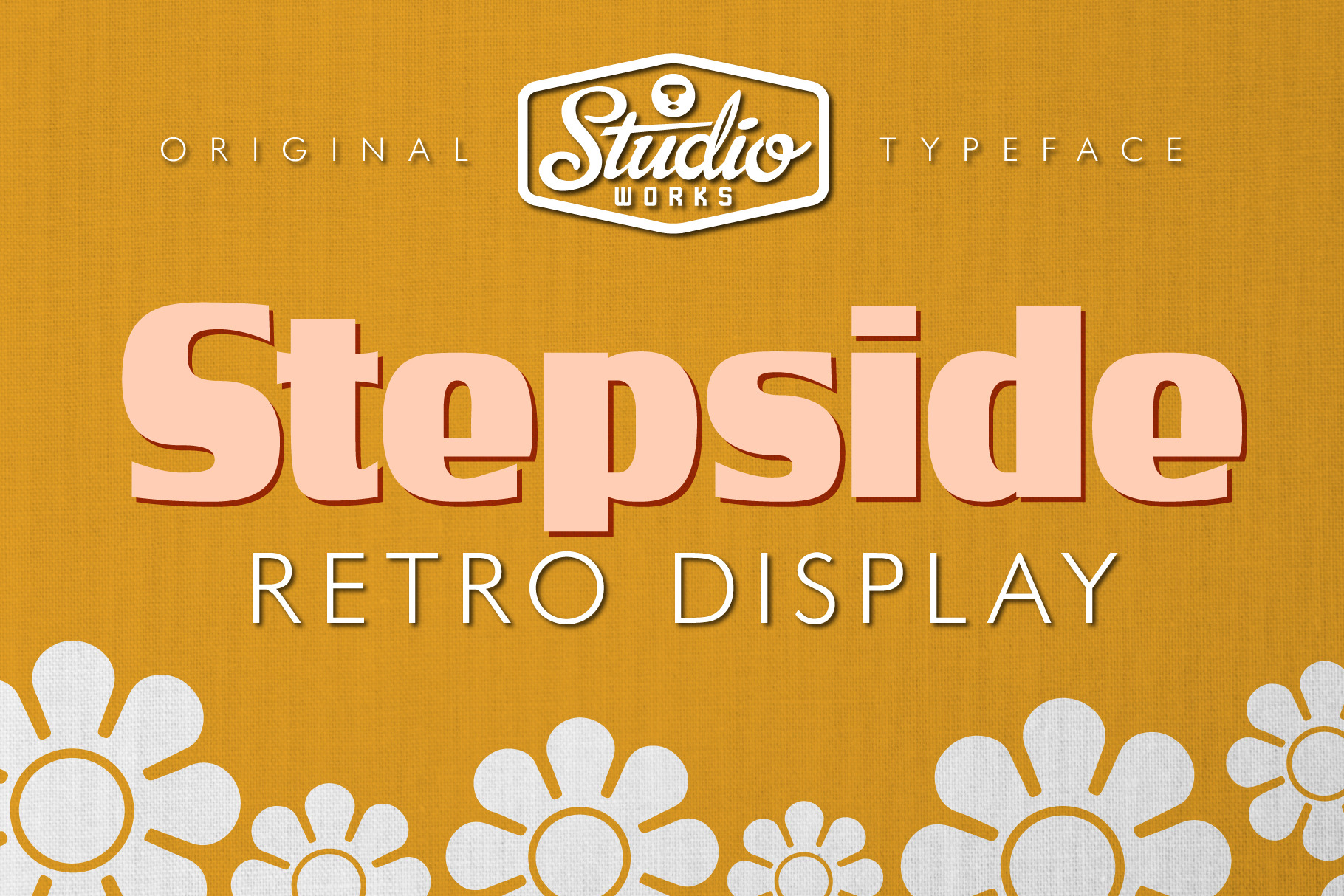
Stepside | Retro Display Font
Studioworks proudly presents •• S T E P S I D E •• — a slick retro display face with plenty of horsepower. Stepside’s heavy-duty type chassis of sturdy uprights and bold strokes was modified with sweet retro details like graceful curves and tapered fins. Inspired by street rods, custom vans and power wagons, Stepside modestly hides its muscle like a true sleeper.
Check out what’s under the hood of Stepside:
Take Stepside for a spin on logos, posters and t-shirts for a more classic look. Need more speed? Step on the gas with Stepside Italic — the perfect ride for headlines and subheads in need of emphasis. Don’t let this factory character set fool you, this typeface hauls.